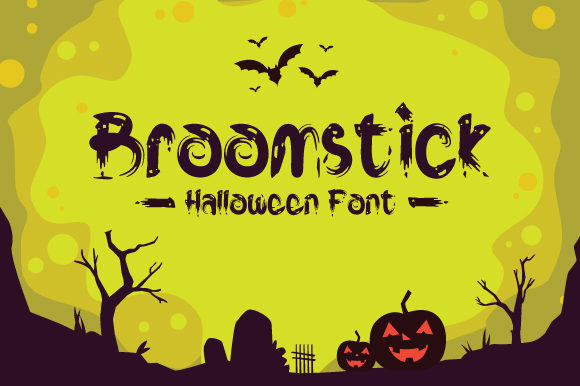
The Magic of Broomstick Font: Elevate Your Halloween Designs
I’ll never forget the time I was working on a Halloween-themed project for a client, and I just couldn’t find the right font to bring the spooky-chic vibe to life. The design was almost complete, but it was missing that special something. That’s when I stumbled upon the Broomstick font, and it was like magic ✨. In this article, I’ll share my experience with this unique display font, its features, and how to make the most of it in your designs.
An Honest Review of Broomstick Font
So, what makes Broomstick font so special? Here are some things I love about it:
• ✅ Unique and quirky design that’s perfect for Halloween-themed projects
• ✨ Excellent for display purposes, such as titles, headings, and signage
• 🔥 Great for crafting a spooky-chic vibe in your designs
• 💻 Highly legible, even at larger font sizes
Of course, no font is perfect, and Broomstick has a few small quirks:
• 🤔 May not be the best choice for body text or smaller font sizes
• ⚠️ Limited use outside of Halloween or spooky-themed projects
The Backstory of Broomstick Font
According to its creators, Broomstick font was inspired by the whimsical and magical world of Halloween. The designers wanted to craft a font that would evoke the feeling of spooky charm and mystique. With its unique and quirky design, Broomstick font is sure to cast a spell on your designs.
Font Name Broomstick Font
Author Bejos Work Studio
What type of projects is Broomstick font best suited for? Broomstick font is perfect for Halloween-themed projects, such as party invitations, decorations, and social media graphics.
Is Broomstick font available in different styles or weights? Currently, Broomstick font is available in a single style, but its unique design and OpenType features make it versatile enough for various design applications.